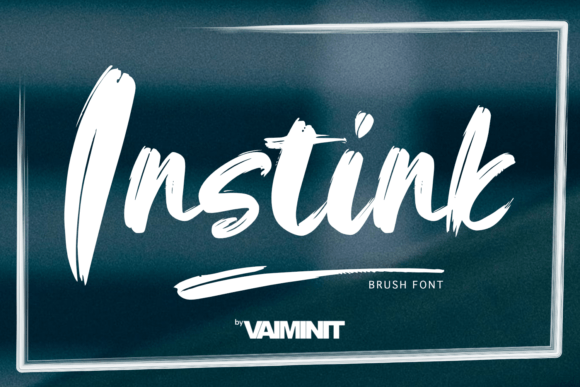
Feast your eyes on Instink, a spellbinding brush-style typeface that oozes organic charm. Meticulously crafted by VAIMINIT, this font is a treasure trove of creativity, ready to elevate your designs to new heights. Instink's enchanting aura is a perfect match for those seeking a font that evokes raw emotion and authenticity.
Step into a world where letters dance with grace, where every word carries a story, and where your designs come alive with an unmatched allure. Instink is not just a font; it's an experience that captivates and inspires. Its organic strokes emulate the beauty of handwritten notes, adding a personal touch to your creations. Imagine your designs adorned with Instink's elegant curves, each letter flowing seamlessly into the next, creating a visual symphony that draws the eye.
With Instink, you'll discover a font that effortlessly adapts to any context. Whether you're crafting a heartfelt letter, designing a captivating poster, or creating a stunning social media post, Instink effortlessly complements your vision. Its versatility knows no bounds, making it the perfect choice for a wide range of projects. Unleash your creativity and let Instink guide you towards exceptional designs that leave a lasting impression.
In the realm of typography, Instink stands as a beacon of originality. Its unique letterforms, inspired by the fluidity of brushstrokes, break free from the mundane and ordinary. Each character carries a distinct personality, adding depth and dimension to your designs. Embrace Instink's unconventional beauty and watch as your projects transcend the boundaries of the ordinary, captivating audiences with their captivating allure.